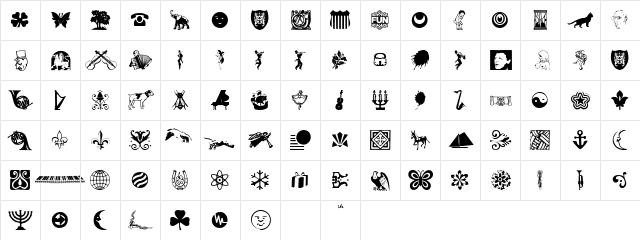
DavysOtherDingbats Normal
Design Context for DavysOtherDingbats Typeface
DavysOtherDingbats is a composed and adaptable typeface that performs quietly and consistently across a wide range of design contexts.